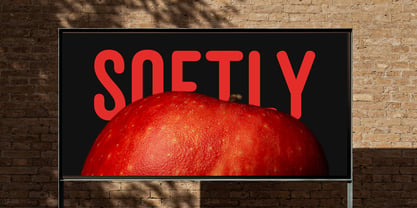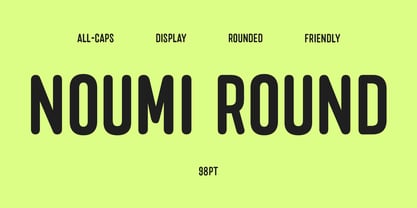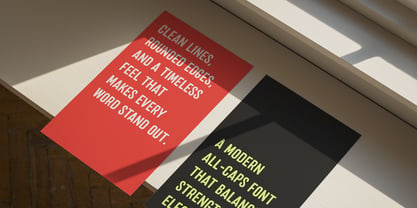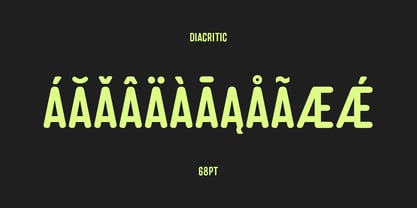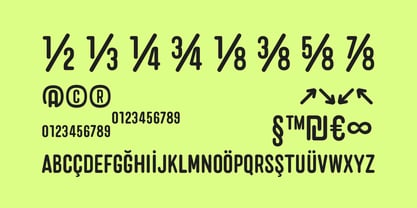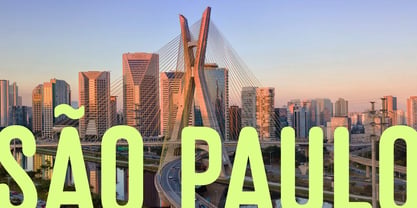
Noumi Round
by Tiga Type
The Noumi Round Font Family was designed by Agit Akbulut and published by Tiga Type. Noumi Round contains 1 styles. More about this family
Noumi Round is a modern all-caps sans serif typeface with rounded corners and a condensed structure. Its balanced geometry provides clarity, while soft edges add a friendly and approachable feel. Perfect for bold headlines, logos, posters, packaging, and editorial projects, Noumi is versatile and timeless. Designed to stand out in both print and digital use, it gives every word a confident, stylish, and modern voice.
Designers: Agit Akbulut
Foundry: Tiga Type